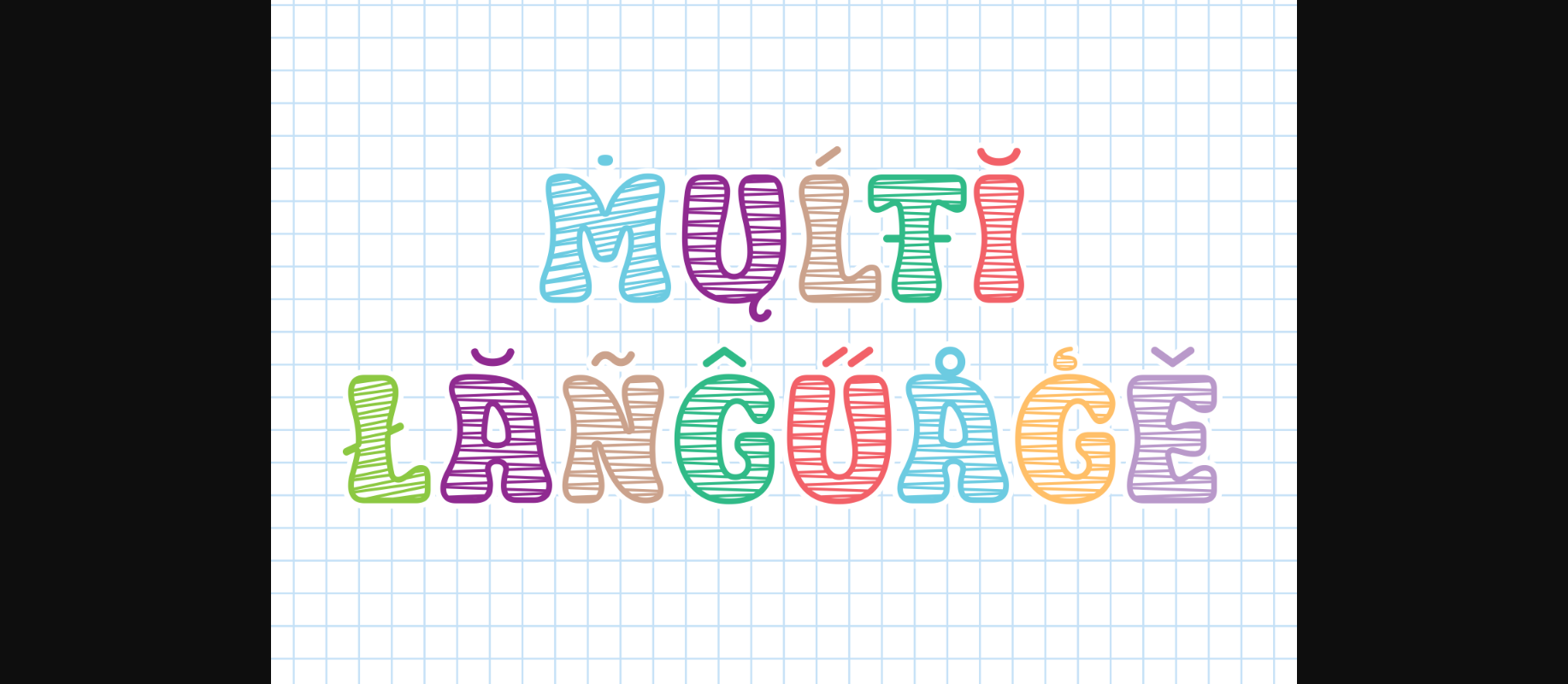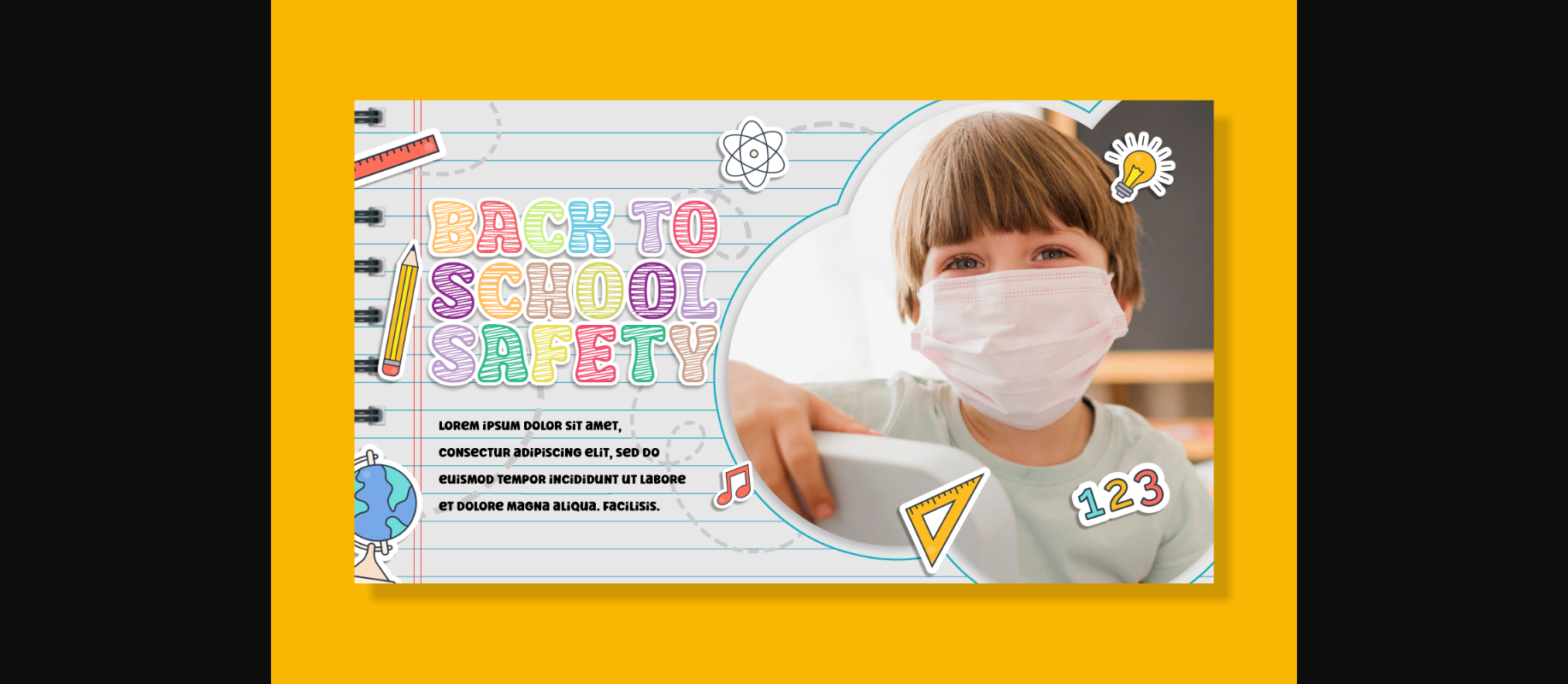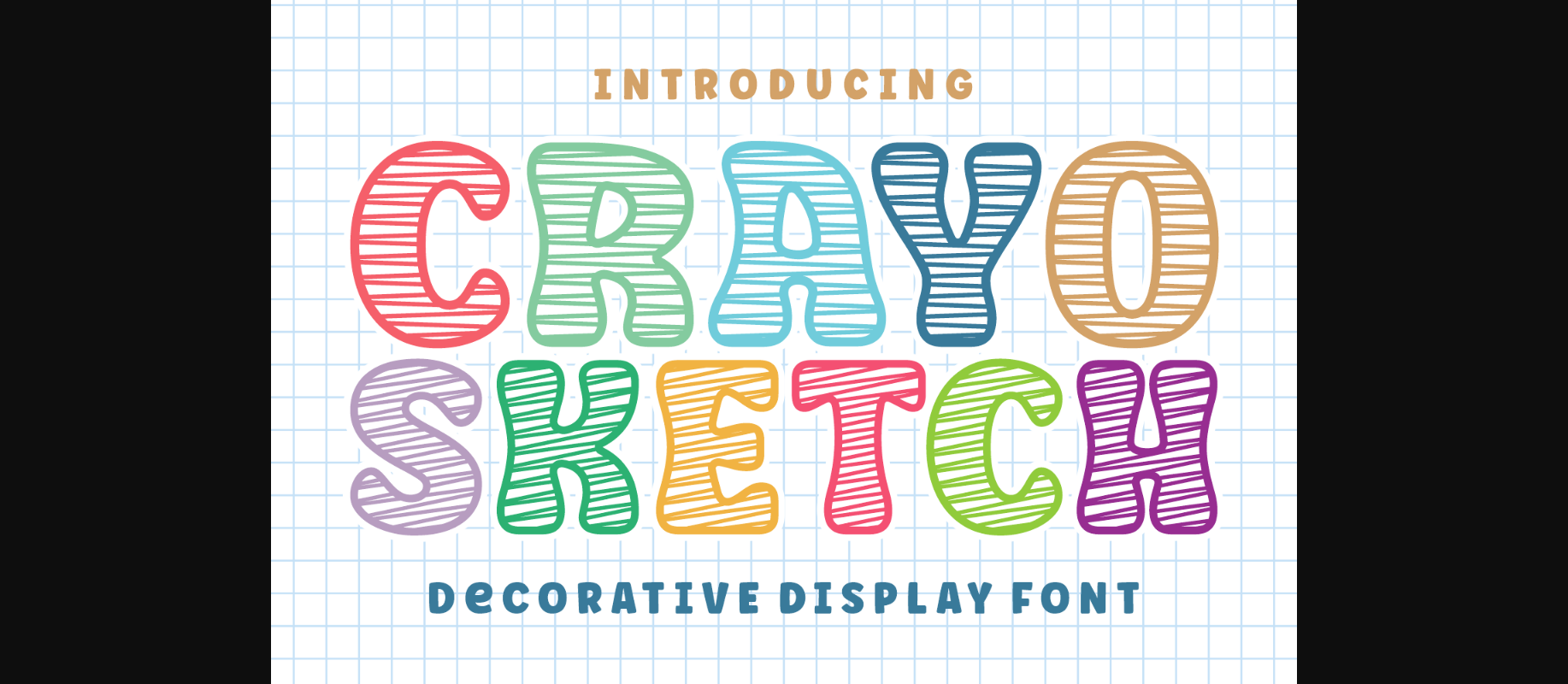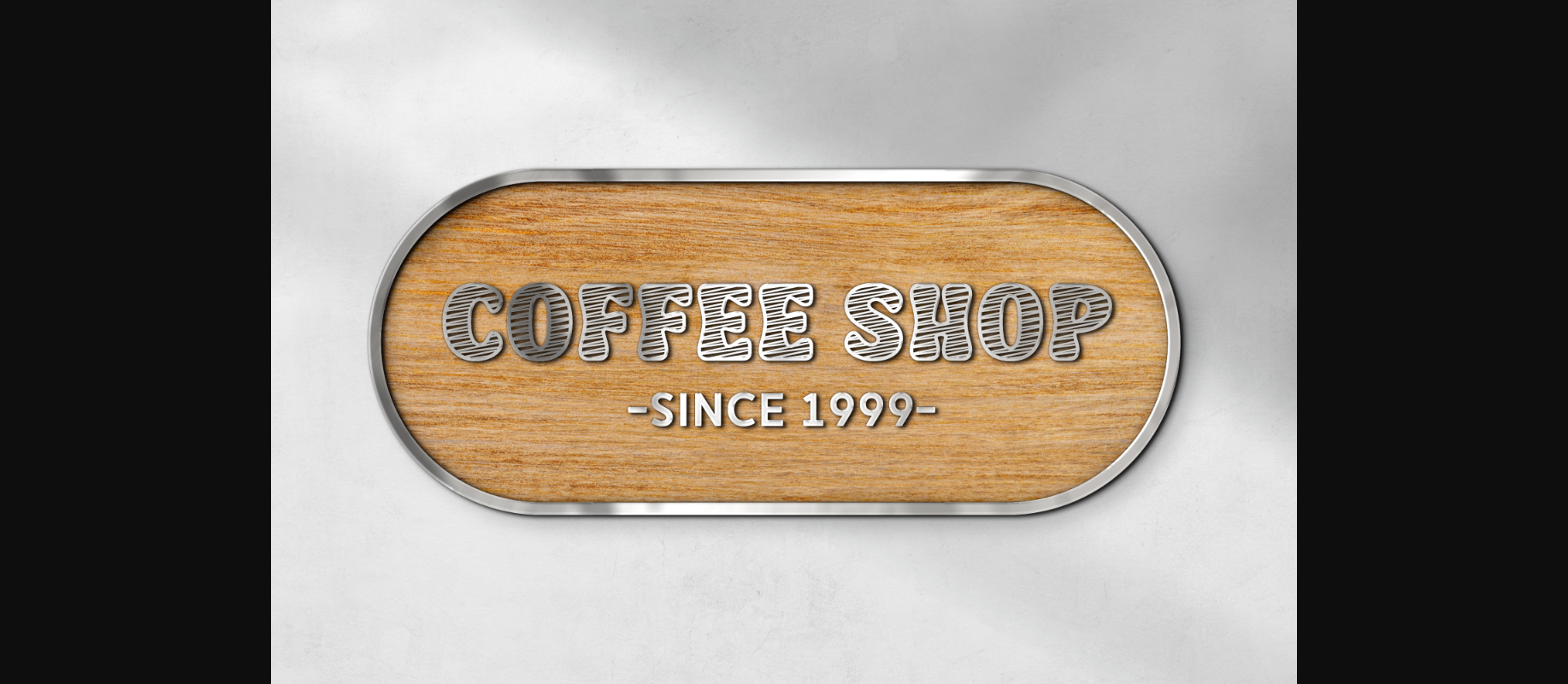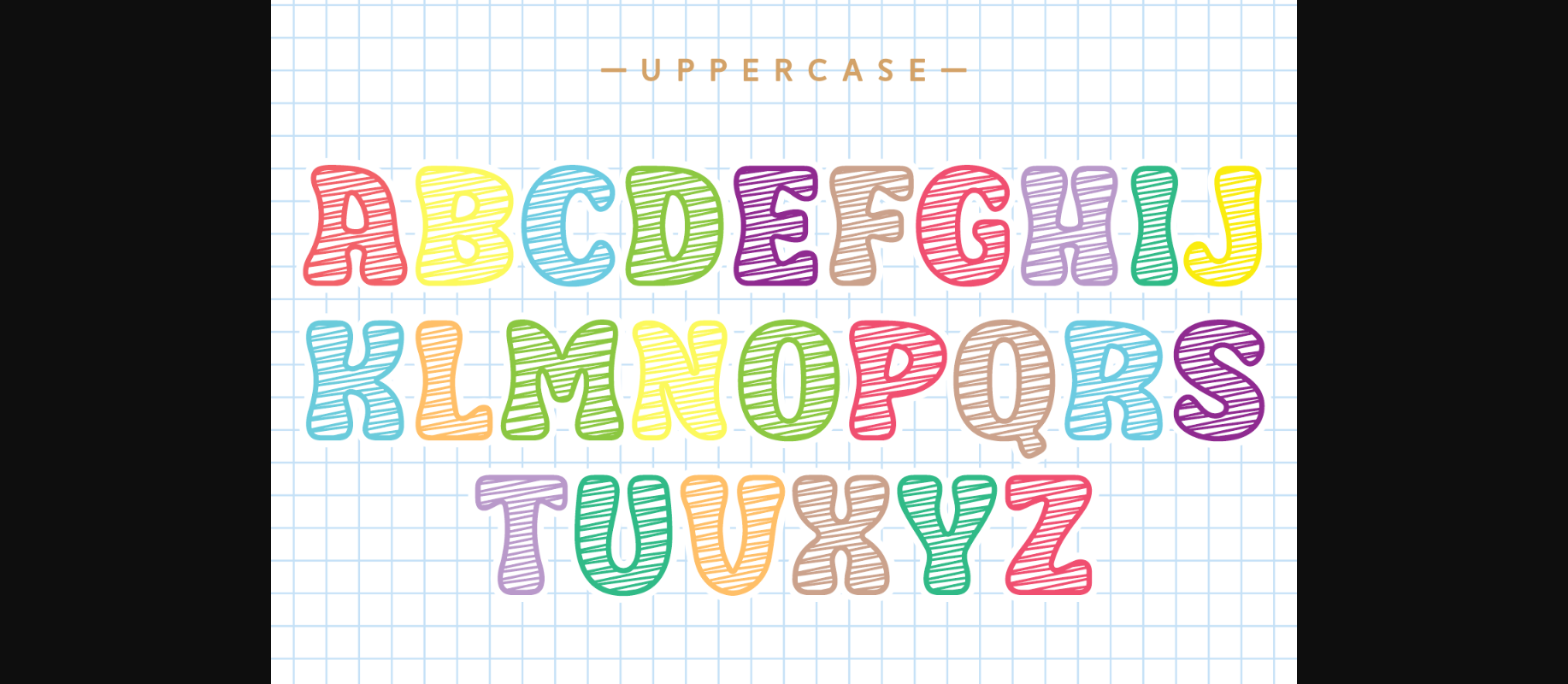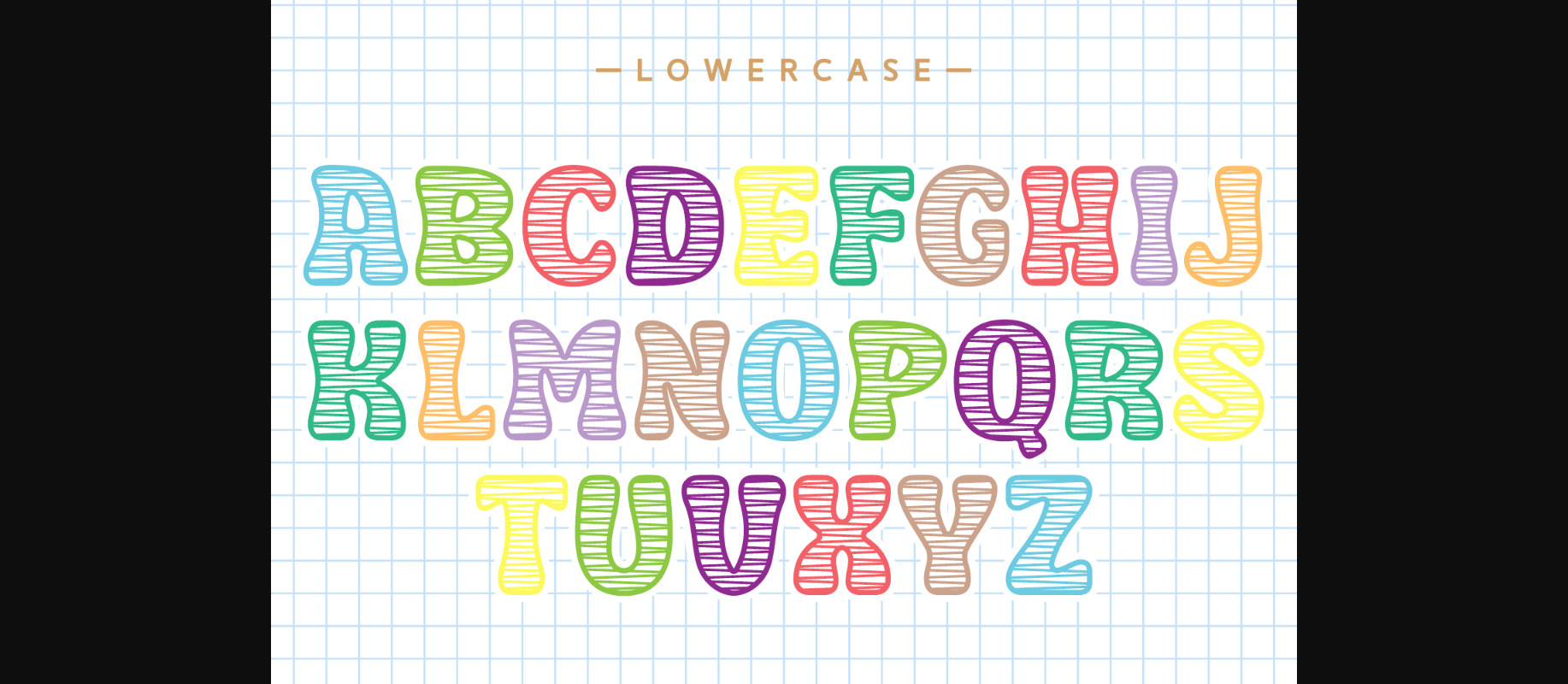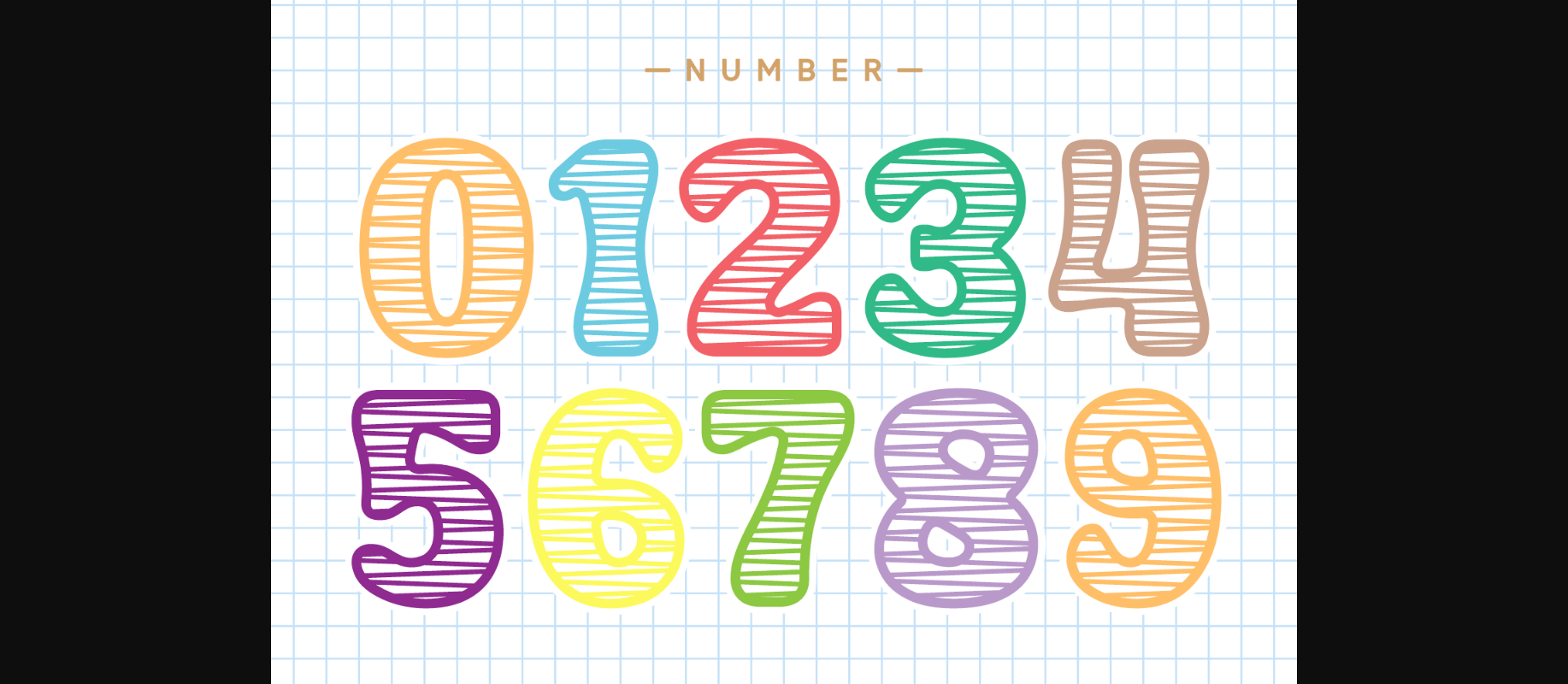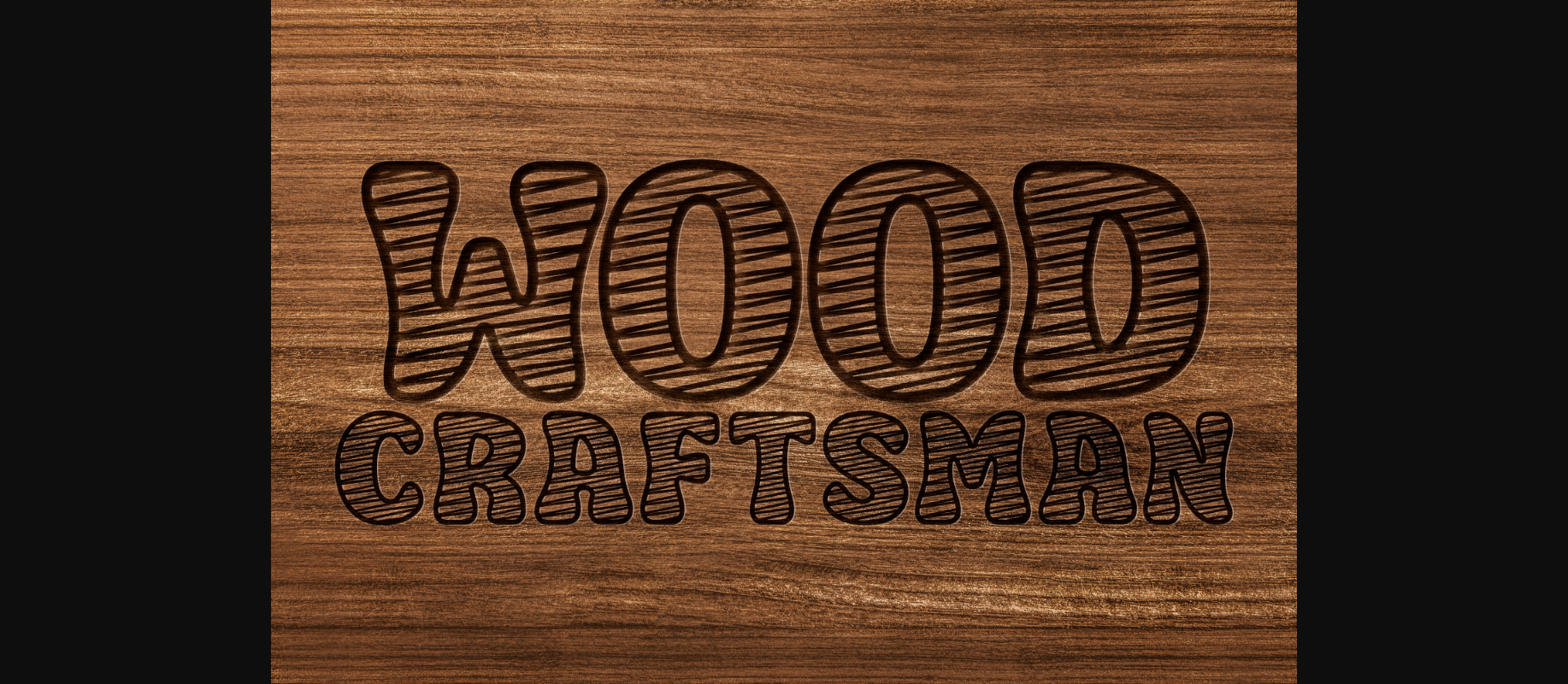
HomeDecorative FontsCrayo Sketch Font Decorative Fonts Crayo Sketch Font FacebookXPinterestWhatsApp 1 of 10 ... Crayo Sketch Font Poster 2... Crayo Sketch Font Poster 3... Crayo Sketch Font Poster 4... Crayo Sketch Font Poster 5... Crayo Sketch Font Poster 6... Crayo Sketch Font Poster 7... Crayo Sketch Font Poster 8... Crayo Sketch Font Poster 9... Crayo Sketch Font Poster 10... About Crayo Sketch Font Crayo Sketch is a cool, unique, and attractive decorative font. It embodies fun and authenticity is the perfect choice for kids’ activities or school projects and clothing designs. DOWNLOAD NOW People also explored Bechtlers Font Borela Font Quarter Font Sure Americana Font Sealatte Font Stephanie Meadow Font Alegarde Font Autumn Tree Font Young Evaline Font 463 0 TagsCrayo Sketch Font Previous articleBrave Loves FontNext articleHappy Petals Font LEAVE A REPLY Cancel reply Comment: Please enter your comment! Name:* Please enter your name here Email:* You have entered an incorrect email address! Please enter your email address here Website: Save my name, email, and website in this browser for the next time I comment. Personal Use Free My Ugly Handwritting Personal Use Free Read more about this font Bolt Electric Personal Use Free Read more about this font Vincent Familiante Personal Use Free Read more about this font Gratisan Personal Use Free Read more about this font BLOG Fonts That Capture the Spirit of New York City New York City is more than just a place—it’s an experience, a rhythm, a visual language... Free vs Paid Fonts: Why Investing in Premium Fonts Is Worth It Top 7 Google Fonts Alternatives for Faster and Privacy-Friendly Web Design (2025) How to Cut Any Font on Cricut: Convert a Font to SVG (Free)